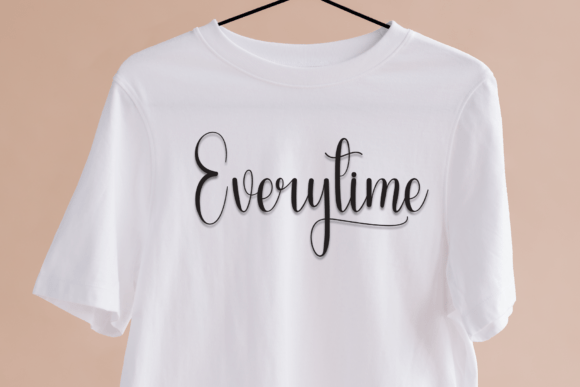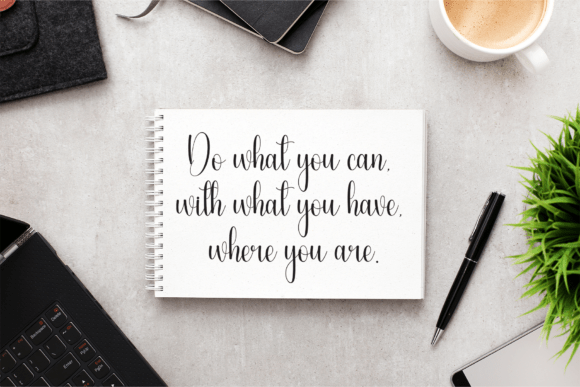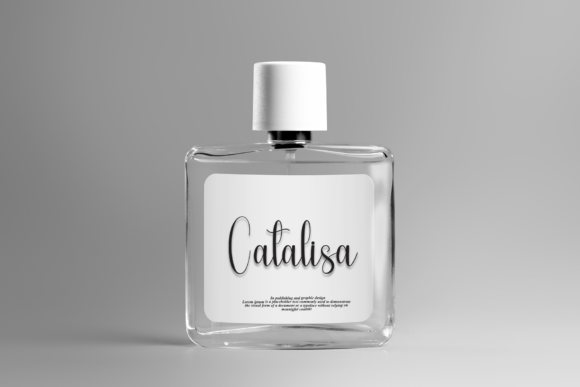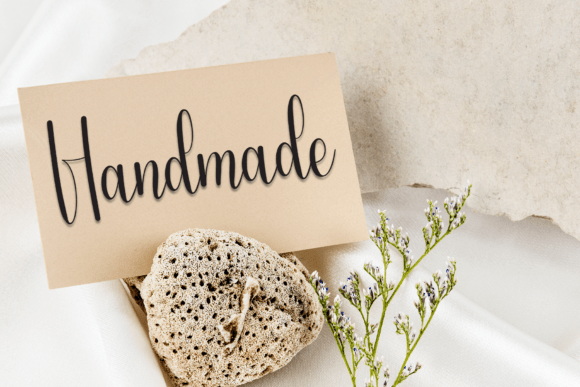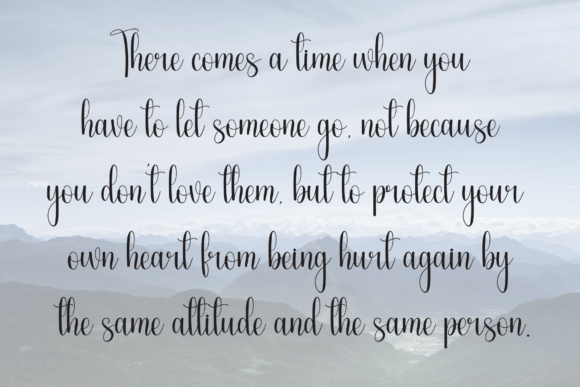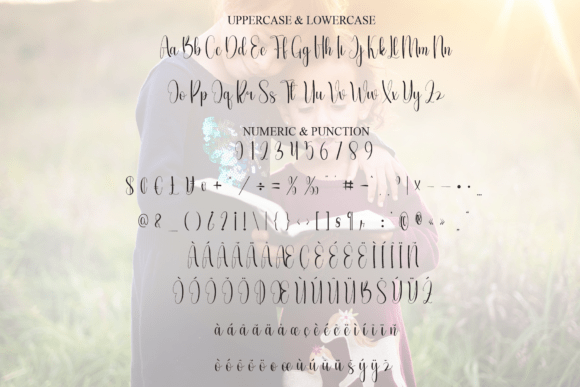
Introduction to Sister Monogram Font
Have you ever been working on a creative project and stumbled upon that perfect font that elevates your design to the next level? For many designers, this moment is a game-changer. It’s the spark that ignites a new idea, a fresh perspective, and a sense of excitement. For us, that font is the Sister Monogram Font – a stunning handwritten script that effortlessly combines modern elegance with a playful touch.
This versatile typeface is a design treasure trove, offering endless possibilities for logos, packaging, and invitations. Its fluid strokes and charming curves bring a personal feel to any project, making it an invaluable resource for designers seeking to add warmth, sophistication, and creativity to their work. Whether you’re working on a high-quality design or a simple project, the Sister Monogram Font is sure to leave a lasting impression.
Key Features of Sister Monogram Font
- Unique and elegant monogram design, perfect for creative projects and personal branding.
- Perfect for weddings, graduations, and other special occasions where a custom monogram is desired.
Honest Review: Sister Monogram Font
What works well: ✨ The font’s elegant, cursive script is perfect for adding a touch of sophistication to invitations, stationery, or even branding materials. The high quality of the font ensures that it prints beautifully, even at larger sizes.
Some things to consider: ⚠️ While the font is versatile, it may not be the best choice for digital displays, as the cursive script can be difficult to read at small sizes. Additionally, the font is a bit on the heavier side, so it may not be suitable for designs where a lighter font is needed.
Here are some key features I appreciated:
- High-quality design that prints beautifully
- Elegant, cursive script perfect for invitations and stationery
Overall, I’m very impressed with the Sister Monogram Font and would highly recommend it to anyone looking for a high-quality, elegant script font for their design projects.
Common Use Cases for Sister Monogram Font
This font is ideal for wedding invitations, social media graphics, and branding materials. Its high-quality design makes it perfect for professional presentations, reports, and documents. The free download and transparent background make it easy to use in various creative projects.
What is the recommended usage for the Sister Monogram Font?
The Sister Monogram Font is a high-quality design resource suitable for a wide range of creative projects, including wedding invitations, social media graphics, and branding materials. It’s also a great choice for personal projects, such as scrapbooking and DIY crafts.